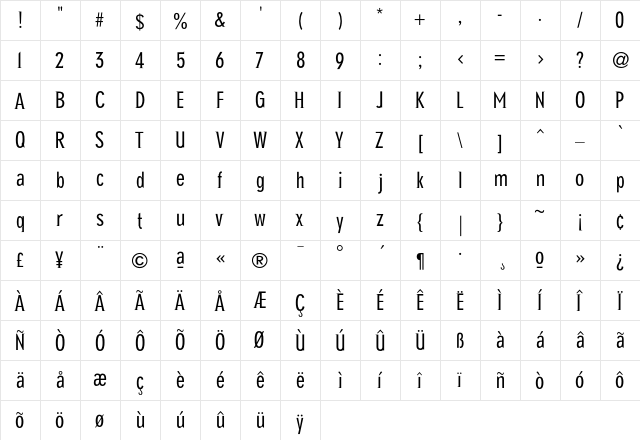
NewGlobalLight Regular
Design Context for NewGlobalLight Typeface
NewGlobalLight offers clean, dependable letterforms without strong stylistic allegiance, making it a practical choice for designers who need flexibility. The delicate stroke weight brings airiness and refinement to layouts.